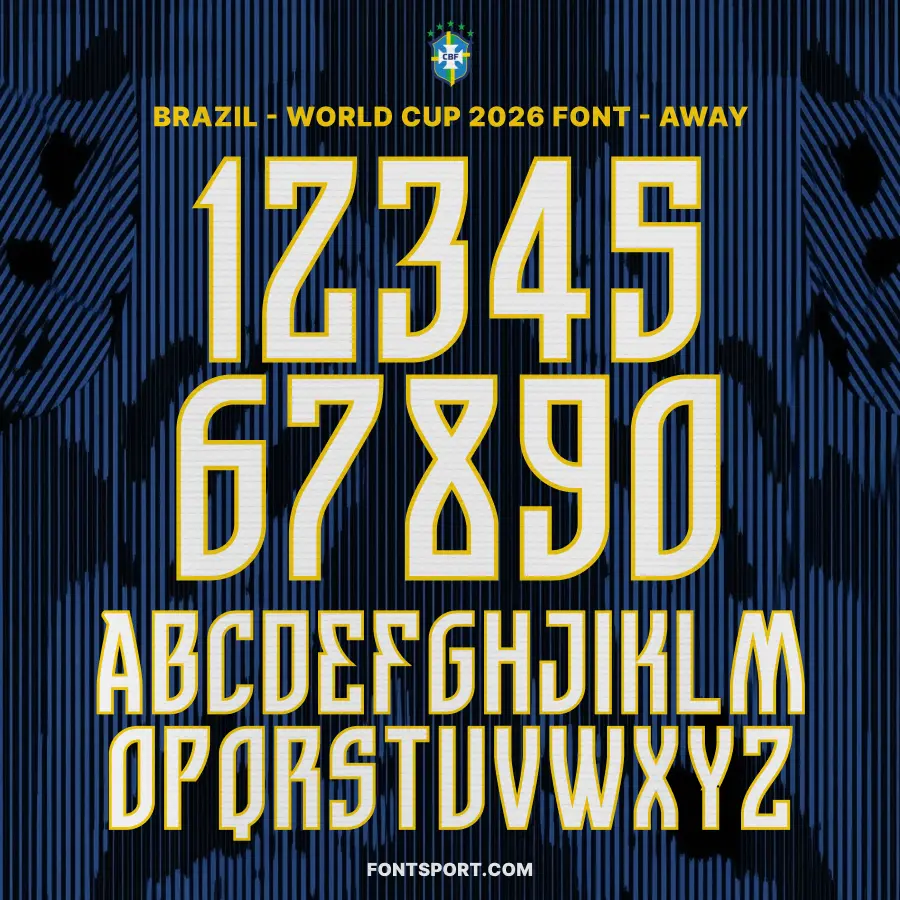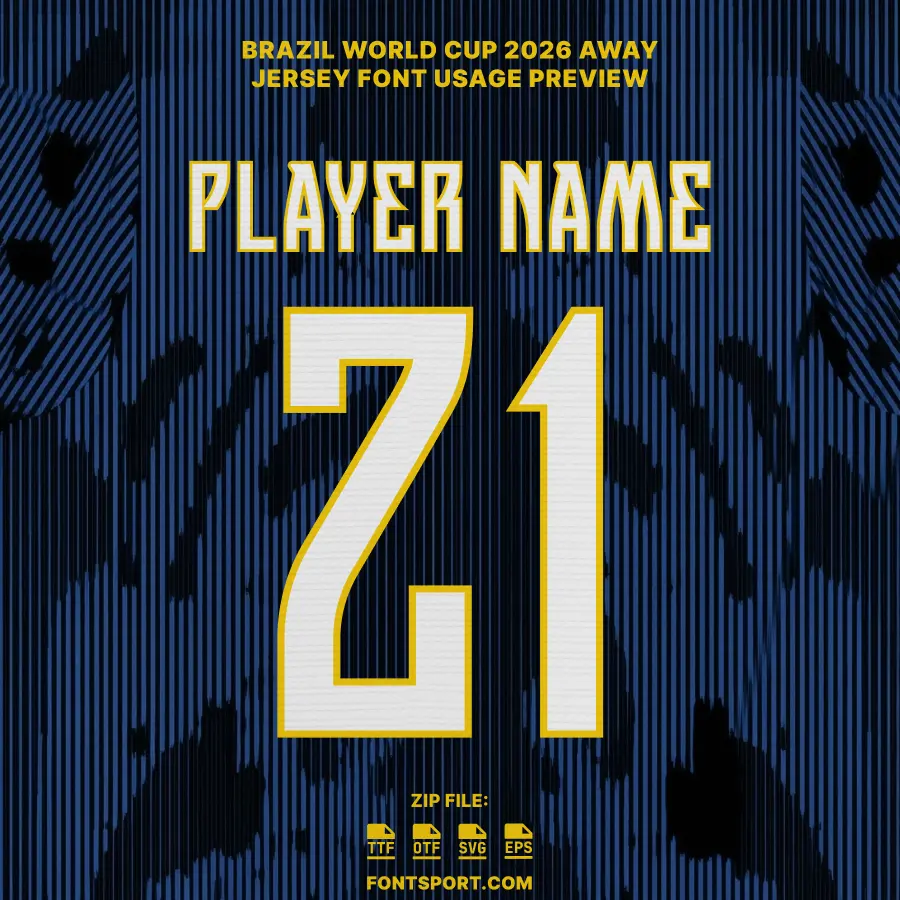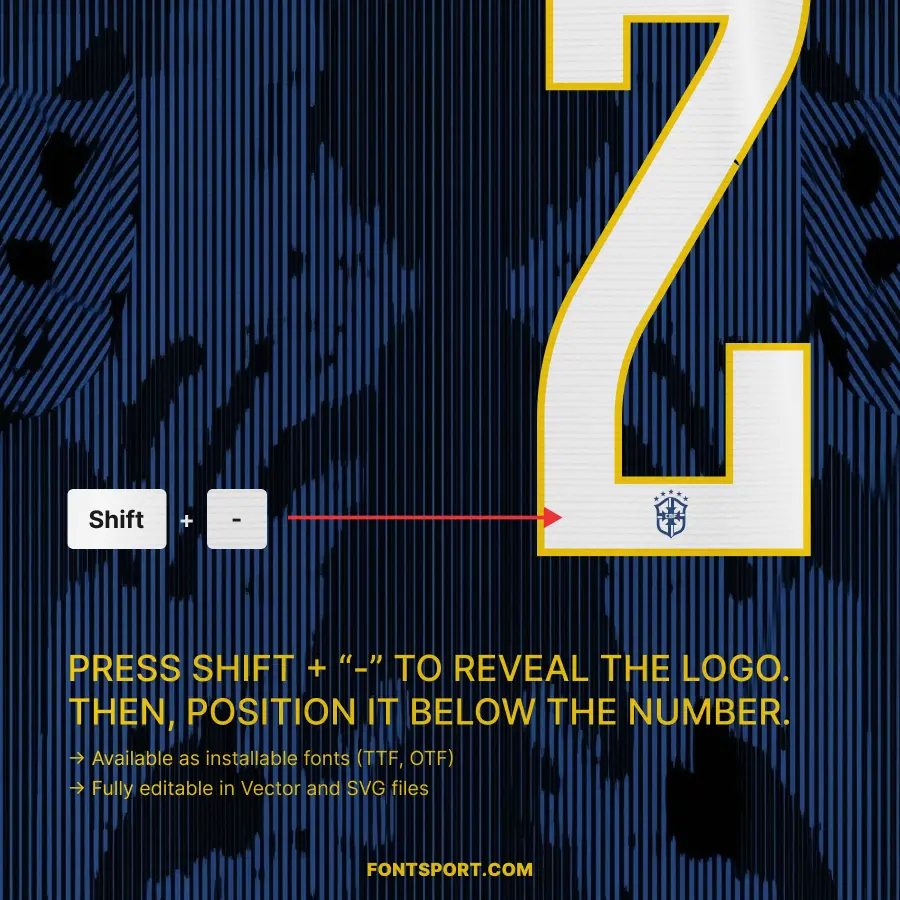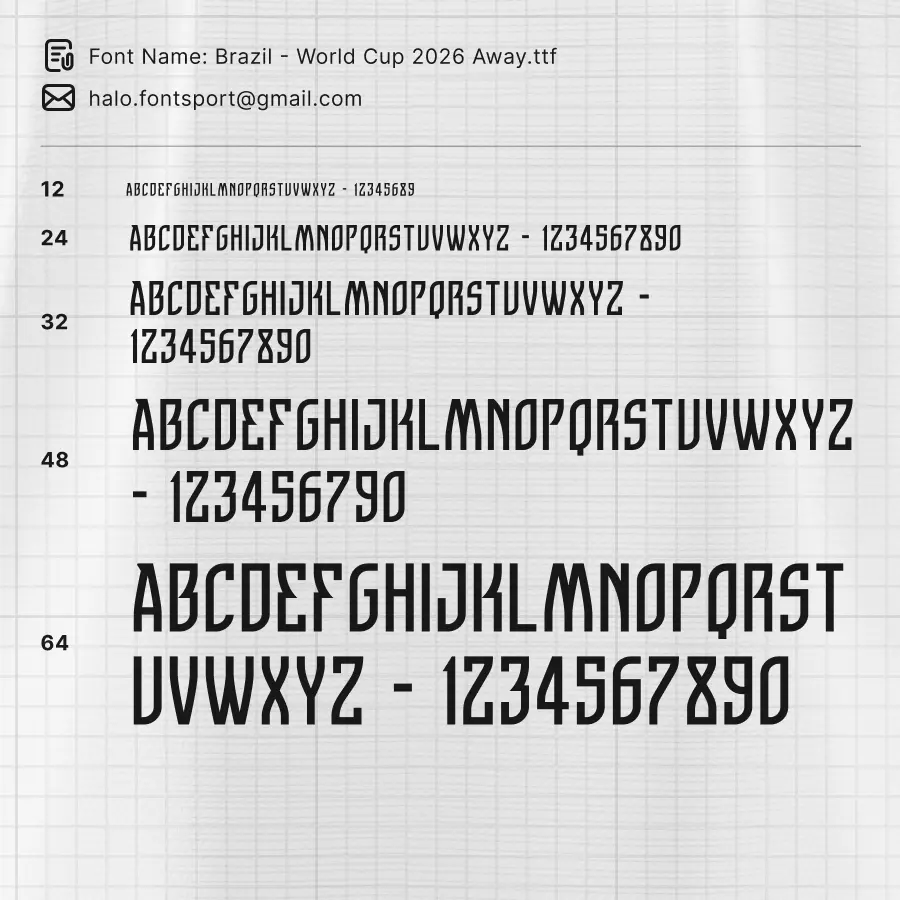
Brazil World Cup 2026 Font Kit Away – Football Typeface
The Brazil World Cup Away 2026 Font Kit marks a historic shift in the visual identity of the five-time world champions.
This font captures the “Apex Mentality” of the Seleção. It features sharp and aggressive geometry that reflects the precision and flair of Brazilian football.
Moreover, the typeface is designed for high-impact visibility. It becomes a centerpiece of the landmark partnership between the Brazilian Football Confederation (CBF) and the Jordan Brand.
As a result, the collaboration brings a strong streetwear influence to the international football stage.
The design is inspired by the typography used on the 2026 “Amazon Poison Dart Frog” away kit. Therefore, the font works perfectly for professional jerseys, match-day graphics, and premium fan merchandise.
- Complete A–Z Character Set: The kit contains bold and condensed uppercase letters. These characters are designed for elite performance typography.
- Full 0–9 Number Set: The number set is optimized for high visibility on football jerseys. It also reflects the sleek structure of modern sport typography.
- Extra Multilingual Alphabet: Furthermore, the font supports accented characters such as Ä, Á, È, Î, and Ë. This makes it ideal for international player names.
This font kit is designed for creators who want to connect elite football performance with global culture.
- Historic Collaboration: This is the first football font inspired by the Jordan x Brazil partnership. Consequently, it replaces the traditional Nike visual identity.
- Inspired by Nature: The design references the Amazon rainforest. Specifically, it draws inspiration from the poison dart frog.
- Optimized for Apparel: Because of its condensed structure, the font works perfectly for jersey customization, team branding, and broadcast graphics.